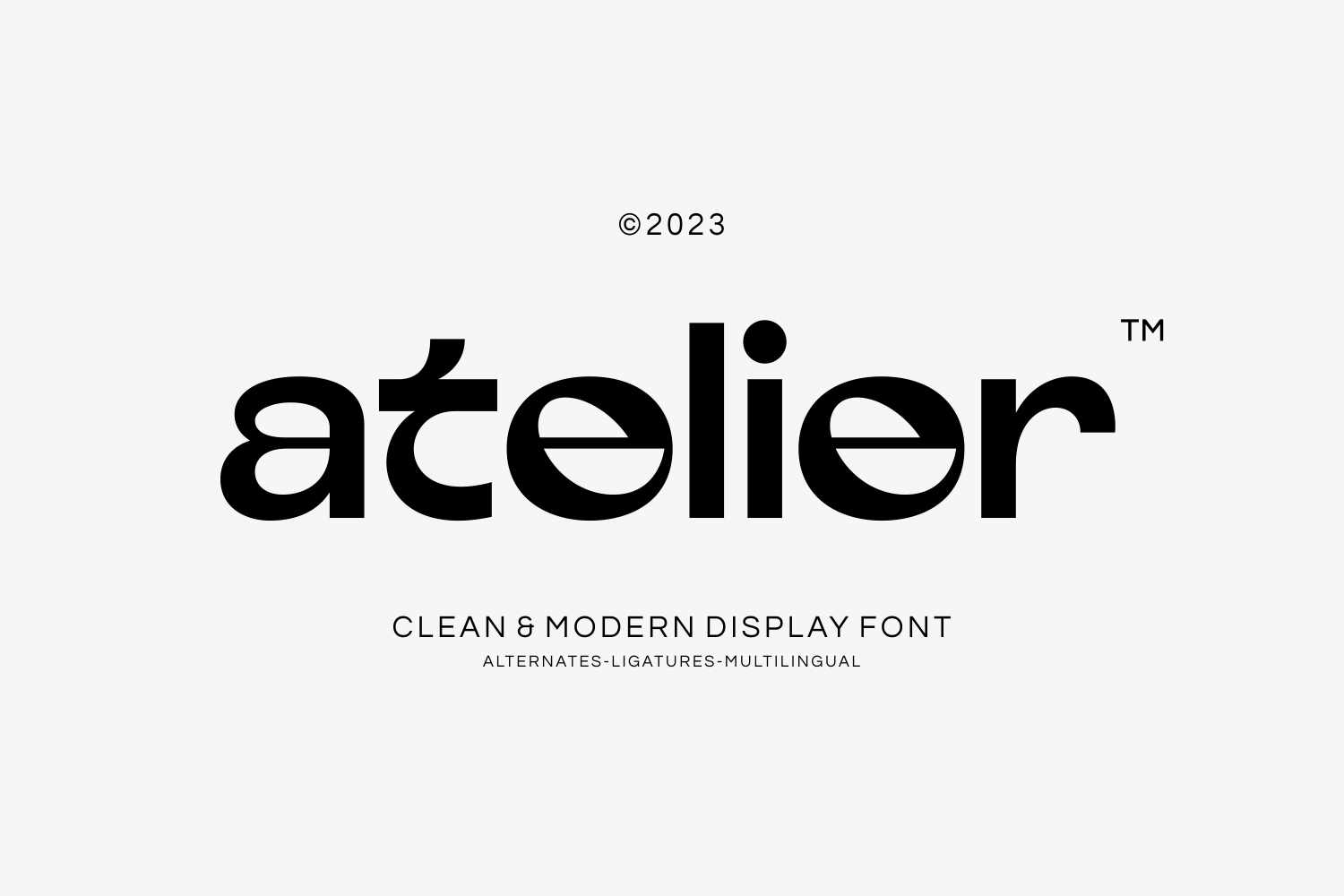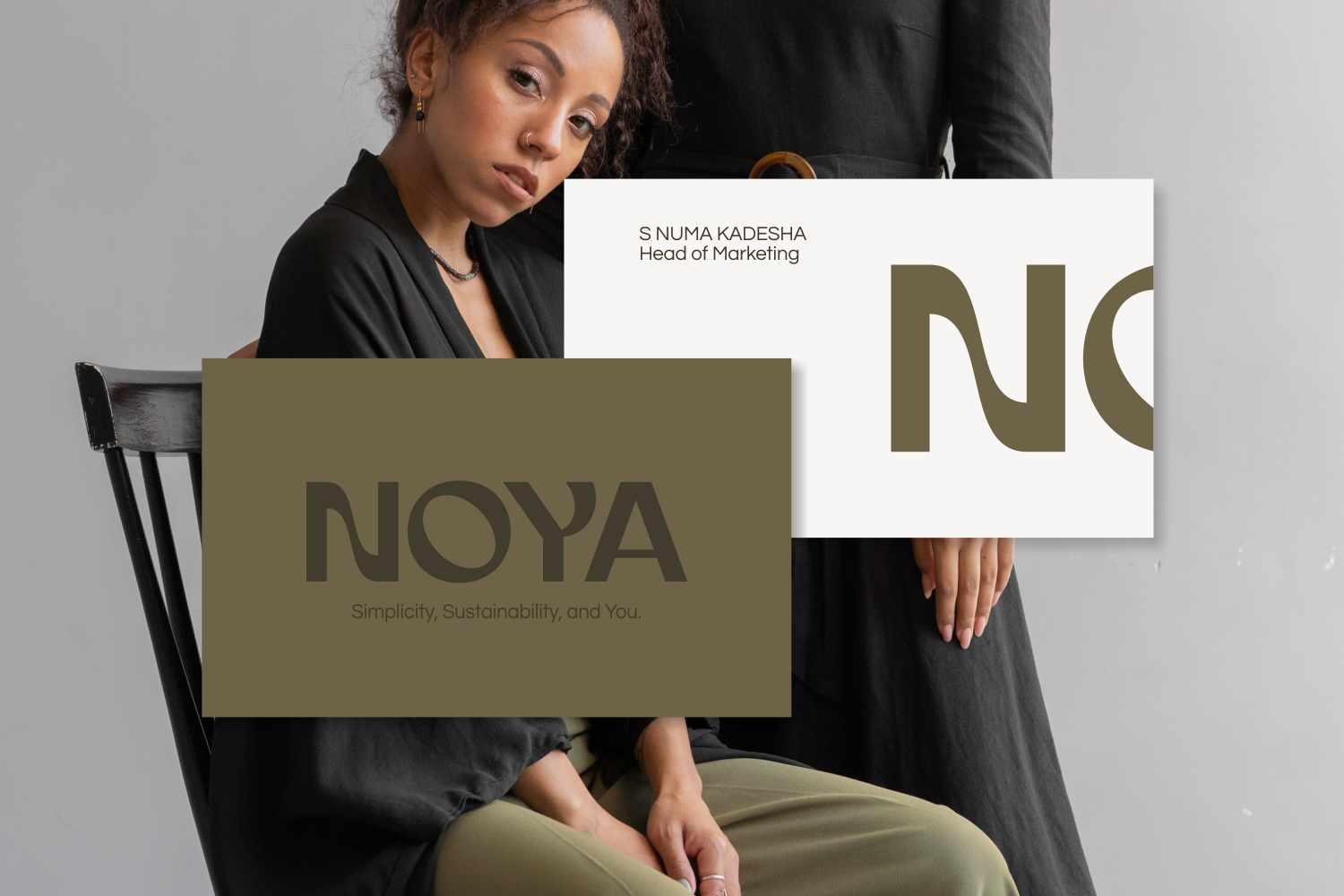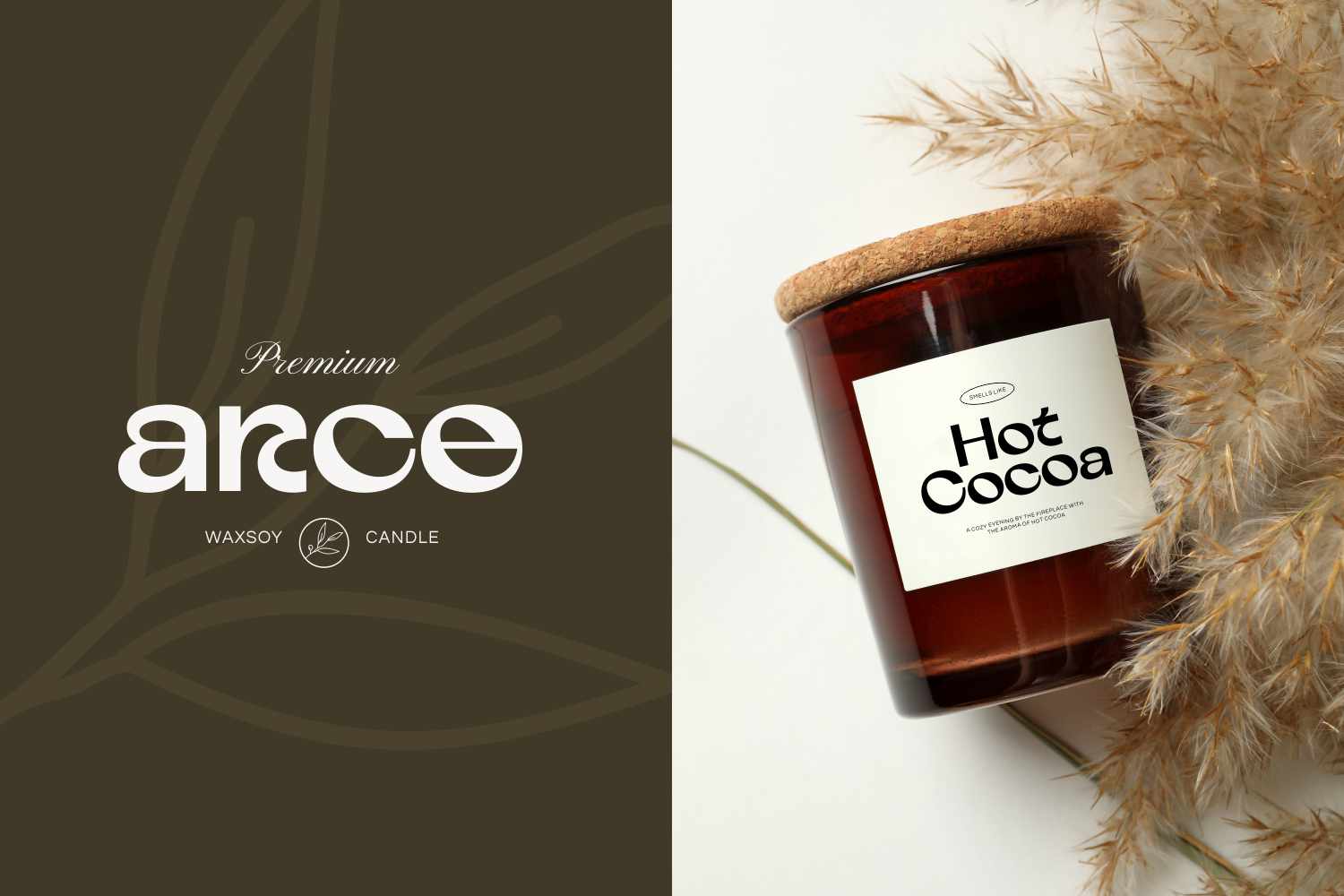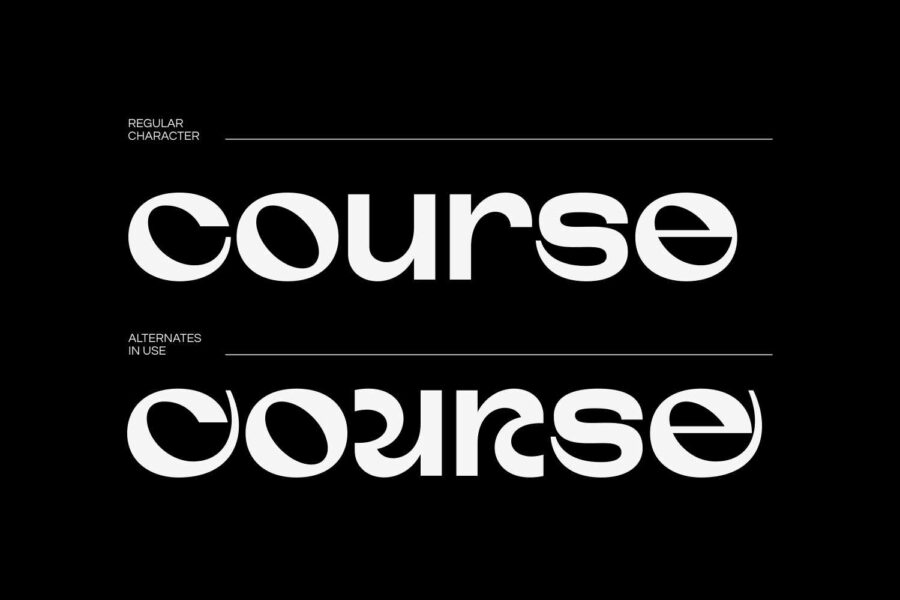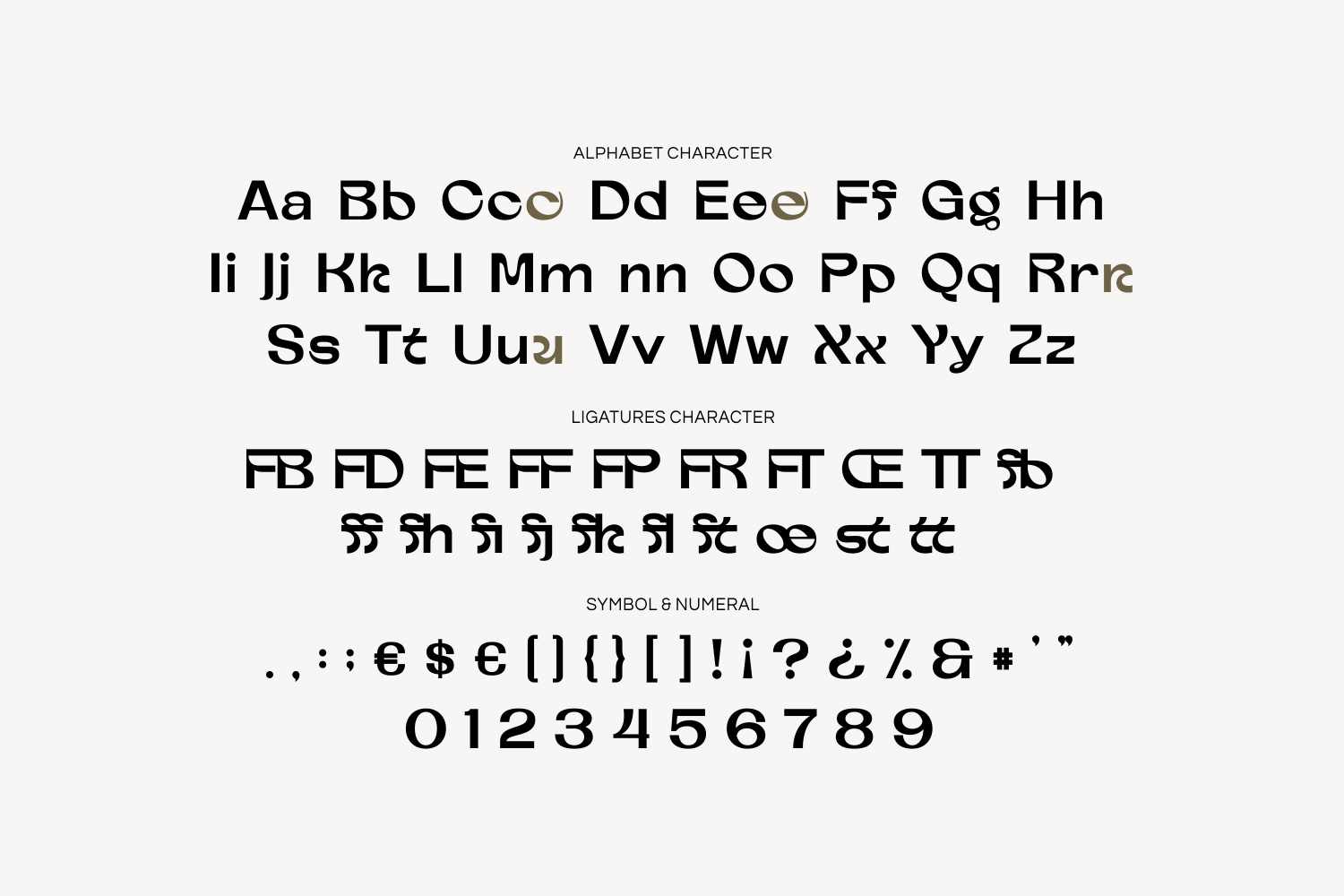
Atelier is a clean and modern display font that blends minimalist elegance with a unique geometric twist. Its precise curves, balanced proportions, and distinctive half-cut letterforms make it perfect for contemporary branding, editorial layouts, and high-end packaging. Designed with a refined aesthetic, Atelier delivers a sophisticated visual identity that stands out while maintaining clarity and readability.
Equipped with alternates, ligatures, and multilingual support, Atelier offers versatile creative possibilities for designers. Whether used for fashion branding, product labels, or sleek corporate designs, its stylish character set allows seamless adaptation across print and digital platforms. With its fusion of simplicity and innovation, Atelier brings a polished, timeless look to any project.